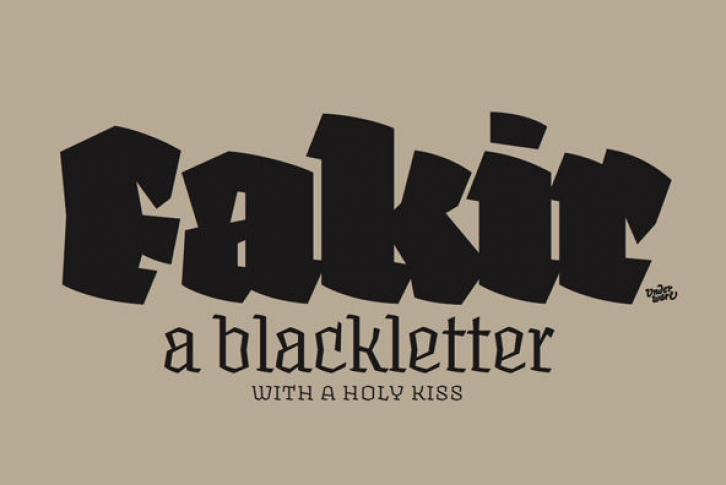
Fakir is a contemporary blackletter typeface, with a set of 11 edgy text and display fonts, ranging from tight and heavy to light and wide. Fakir is a Hindu ascetic or religious mendicant, especially one who performs feats of magic or endurance. The well known feats performed by them include sitting steadily on a bed of nails and walking on burning coals. Blackletter was a script used throughout Western Europe from approximately 1150 to 1500. It continued to be used for the German language until the 20th century. Fakir, a blackletter with a holy kiss is a contemporary interpretation of gone letterforms with origin in blackletters. More precisely, we based the construction on broad nib textura, with lots of broken, edgy, interrupted strokes - try to sit on a nail bed and you'll know why fakirs like to read just these kind of fonts!